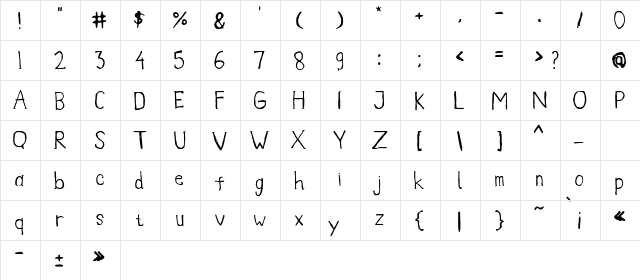
Annabe Regular
Design Context for Annabe Typeface
Annabe is a composed and adaptable typeface that performs quietly and consistently across a wide range of design contexts.
Pro Tip: Pair Annabe with a font of contrasting weight or personality to build a more expressive typographic hierarchy.